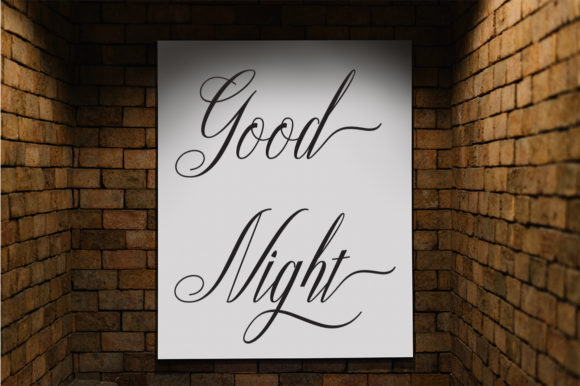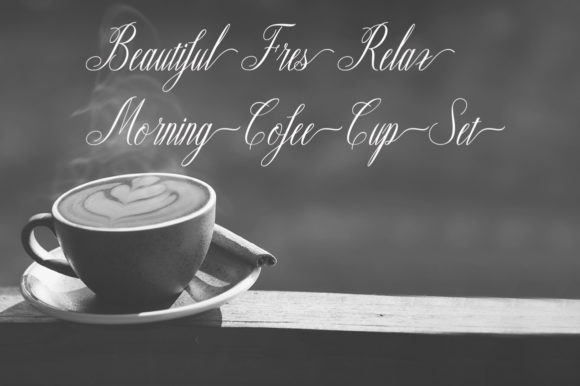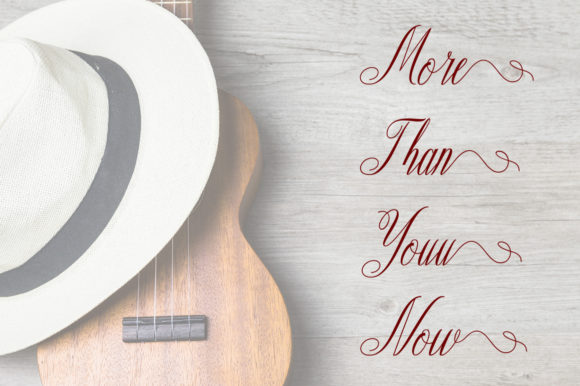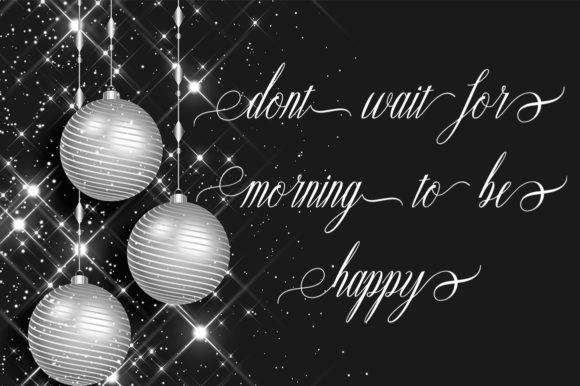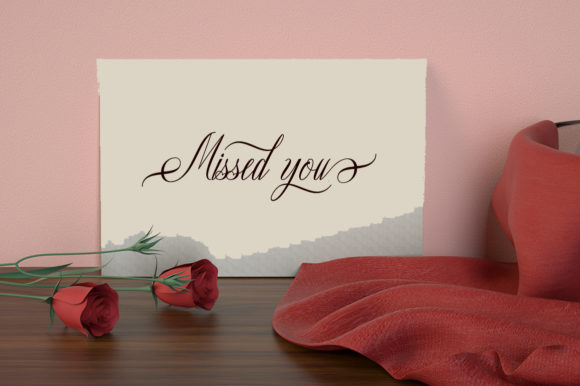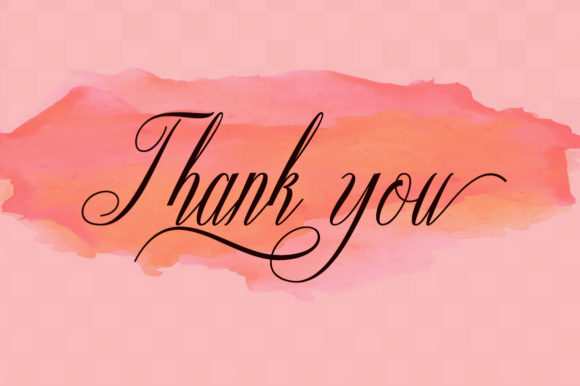
Bunthok Font: Elevate Your Designs with Modern Calligraphy
In the world of typography, calligraphy fonts have always been in high demand, especially among designers and crafters looking for that perfect blend of elegance and modernity. If you’re on the hunt for a font that brings a fresh, contemporary feel to your projects, look no further than the Bunthok Font. This modern calligraphy font is making waves in the design community for its natural, handwritten touch and its unique, modern forms of calligraphy.
What is Bunthok Font?
The Bunthok Font is a sophisticated, modern calligraphy font designed to bring a touch of elegance and sophistication to any design project. Whether you’re working on a branding project, a wedding invitation, or a craft project, this font is sure to make your work stand out. Its natural, fluid strokes and modern aesthetic make it incredibly versatile, suitable for a wide range of applications.
Key Features of Bunthok Font
• Natural Handwritten Touch: One of the standout features of the Bunthok Font is its natural, handwritten appearance. It captures the fluidity and imperfections of handwriting, giving your designs a personal and authentic feel.
• Modern and Unique Calligraphy Forms: Unlike traditional calligraphy fonts, Bunthok offers a modern twist with unique forms that are both eye-catching and stylish. This makes it perfect for designers looking to add a contemporary edge to their work.
• Versatility: The Bunthok Font is incredibly versatile. It can be used for everything from digital projects like website headers and social media graphics to print materials such as brochures, posters, and business cards.
Who Can Benefit from Using Bunthok Font?
The Bunthok Font is a valuable tool for a wide range of professionals and hobbyists. Here are a few groups who can particularly benefit from this font:
• Graphic Designers: Looking for a modern calligraphy font that can add elegance and sophistication to client projects.
• Wedding Planners and Stationery Designers: Seeking unique and beautiful fonts for wedding invitations, save-the-dates, and other stationery.
• Crafters and DIY Enthusiasts: Creating handmade cards, scrapbooking, or other craft projects that require a personal touch.
• Web Designers: Needing a stylish font for website headers, blog posts, or social media content that stands out.
How to Use Bunthok Font Effectively
To get the most out of the Bunthok Font, consider the following tips:
• Pair with Complementary Fonts: For maximum impact, pair Bunthok with clean, sans-serif fonts to create a striking contrast.
• Experiment with Sizes and Colors: Don’t be afraid to play around with different sizes and colors to find the perfect look for your project.
• Use for Headers and Highlights: Utilize Bunthok for headers, titles, and key highlights to draw attention and add a touch of sophistication.
The Bunthok Font is a game-changer for anyone looking to infuse their designs with a modern, calligraphic touch. Its unique blend of natural, handwritten elegance and contemporary style makes it an invaluable asset for designers and crafters alike. Whether you’re creating digital content, print materials, or handmade crafts, Bunthok is sure to elevate your projects to new heights. So why wait? Explore the creative possibilities with Bunthok Font today and discover a new world of typographic excellence.